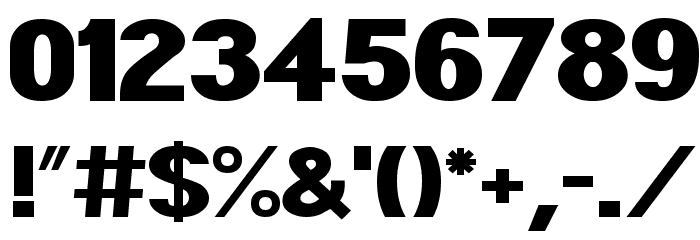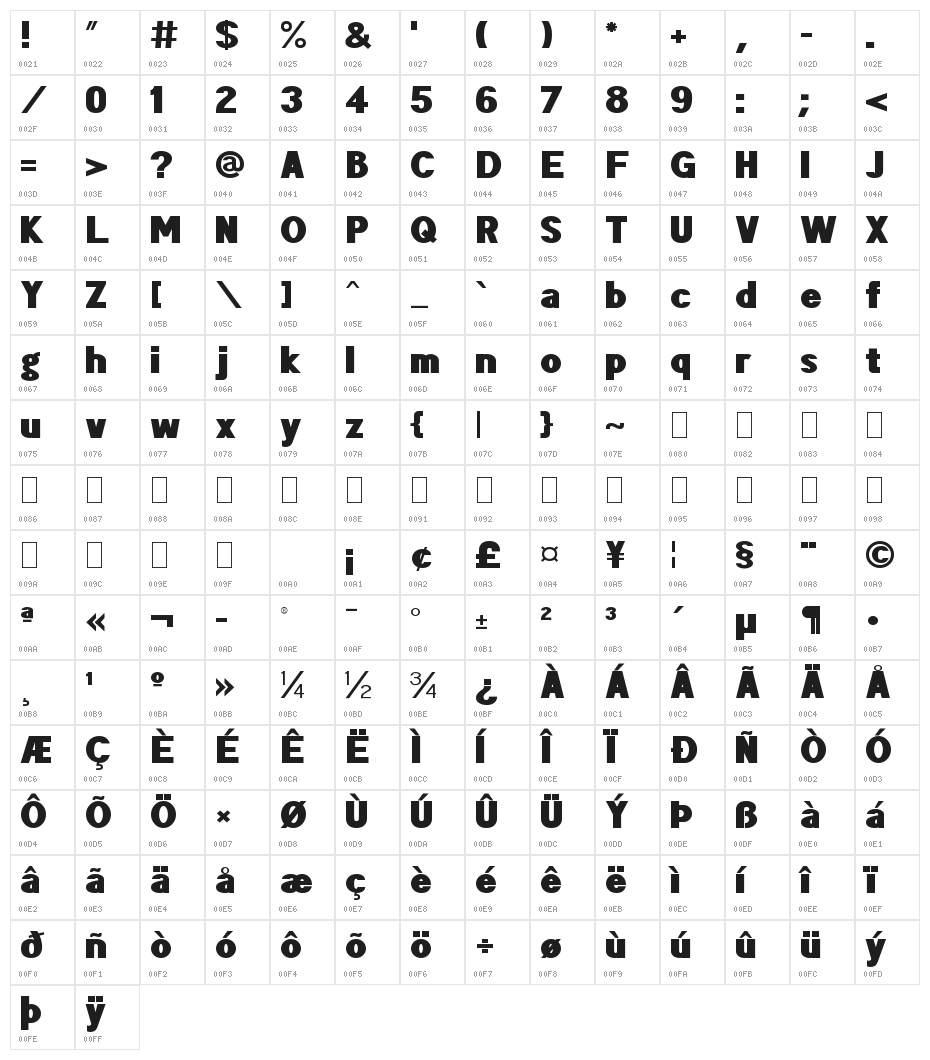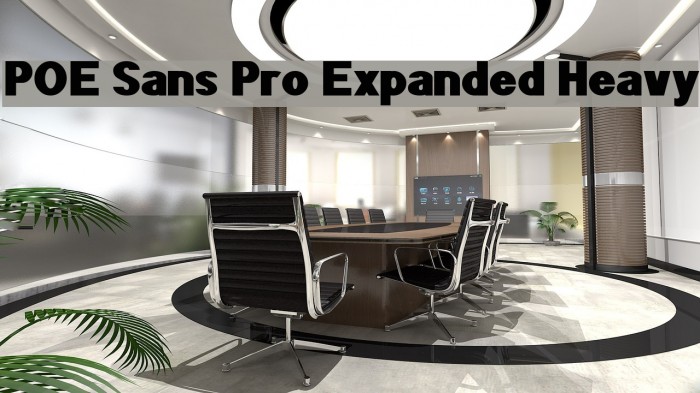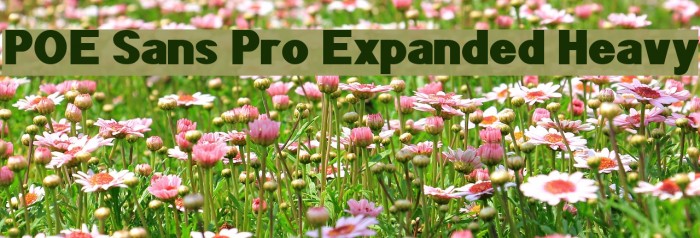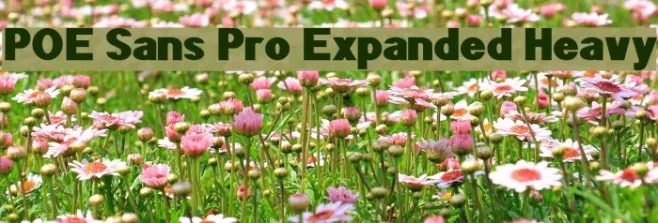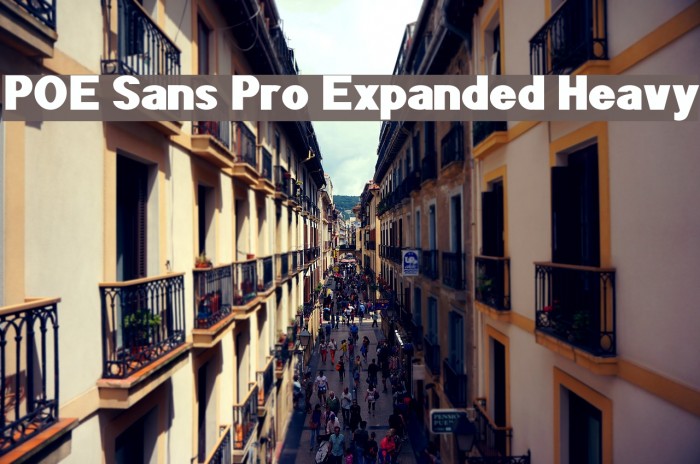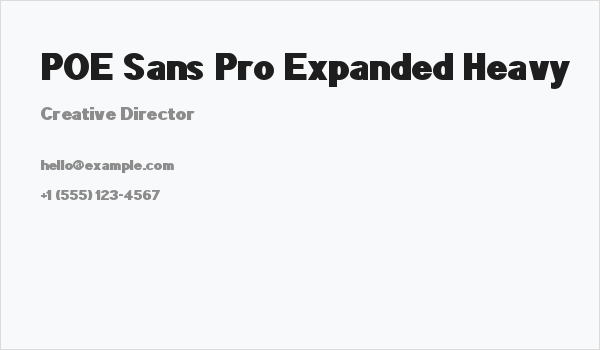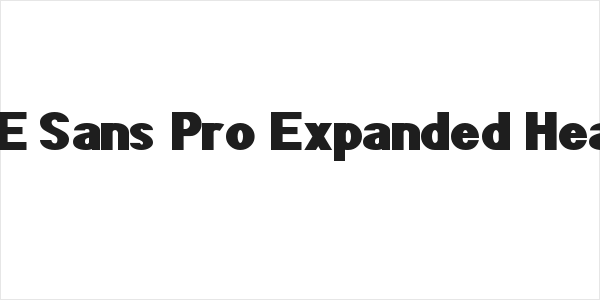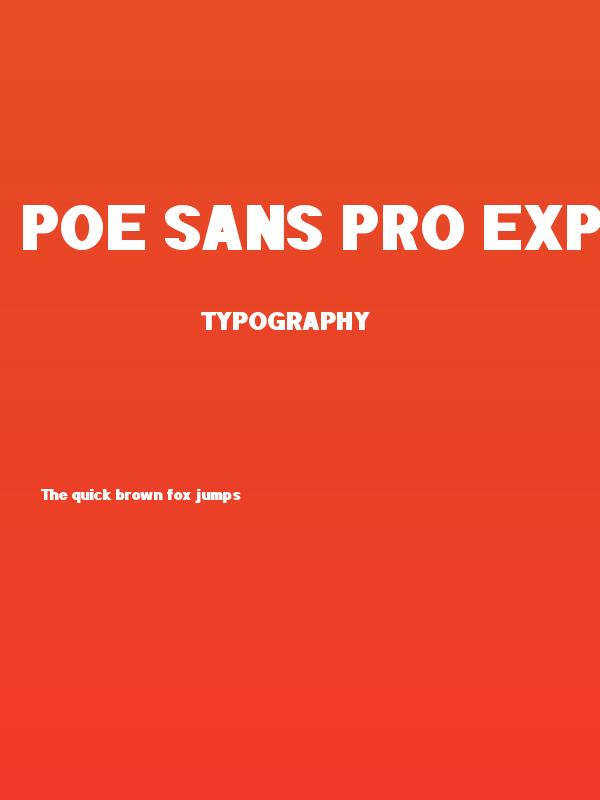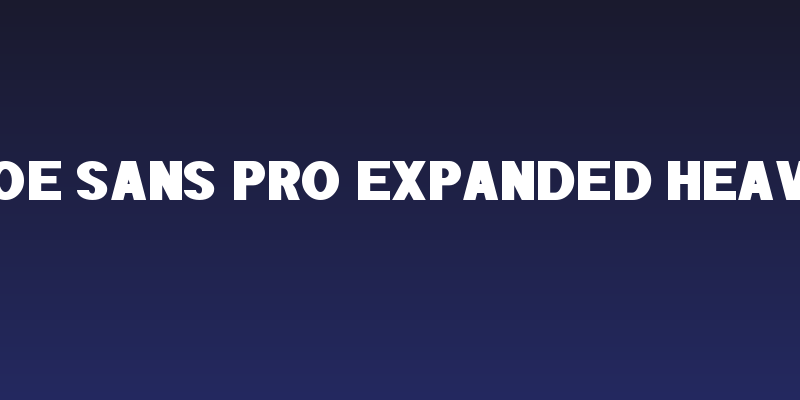
POE Sans Pro Expanded Heavy Font
POE Sans Pro Expanded Heavy Description
This typeface features a bold and commanding presence with its heavy weight and expanded width. The characters are sans-serif, offering a clean and modern look. The uppercase and lowercase letters are well-proportioned, with a consistent stroke thickness that enhances readability. The numerals are robust and align perfectly with the overall style, making them suitable for impactful displays. Special characters are distinct and maintain the font's strong aesthetic, ensuring versatility across various applications.
| Use Case | Headlines, Logos, Advertising |
| Proposed Projects | Ideal for branding, advertising, headlines, and any project requiring a strong visual impact. |